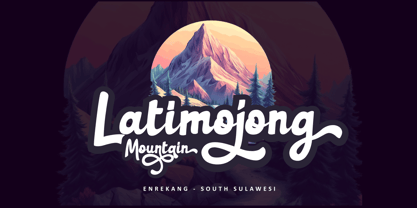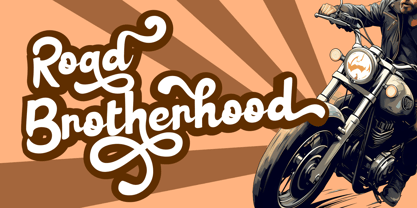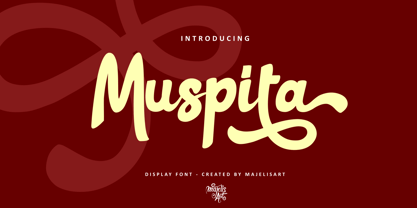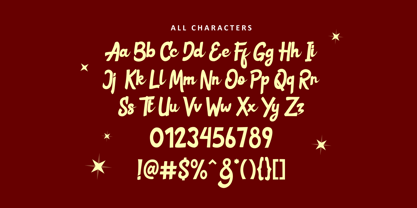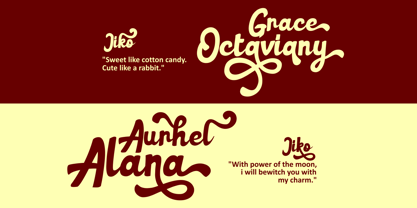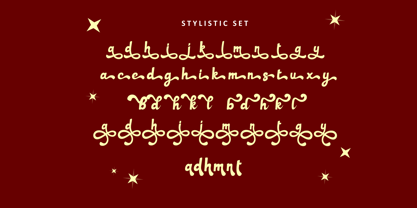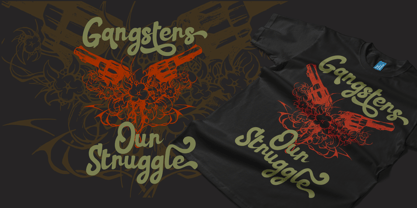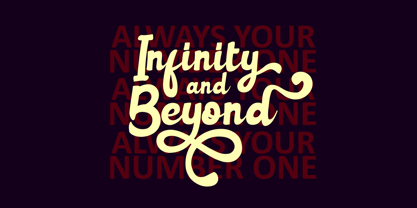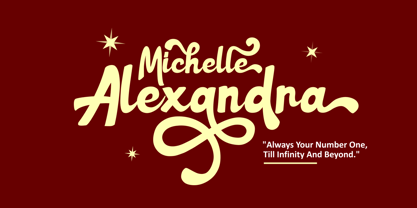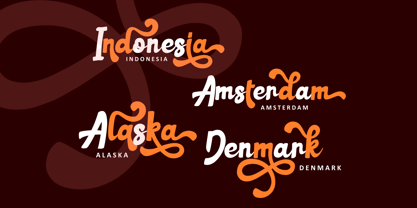
Muspita
by Majelis Art
The Muspita Font Family was designed by Fikhry Mus Pratama and published by Majelis Art. Muspita contains 1 styles. More about this family
Muspita is a display font that we designed following the style of modern calligraphy letters.
Its contemporary design makes it more suitable for today's era.
We recommend this font as suitable for food/snack products that are popular with teenagers, book covers, poster covers, contemporary products/brands and many more.
- Uppercase and lowercase
- Numeral and puncuation
- Stylistic set
- Multilingual